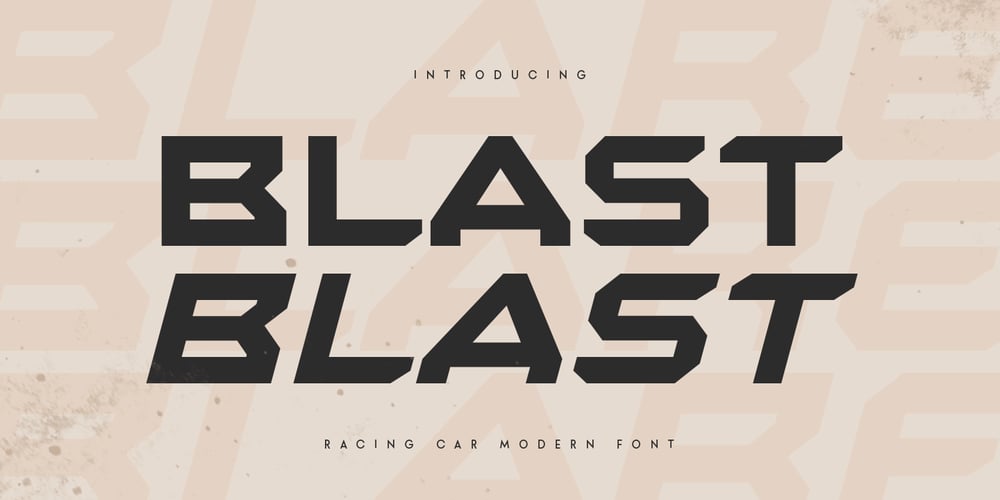
Blast Font Family was designed by Zamroni Hamzah and published by Sensatype Studio. Blast contains 2 styles and family package options. BLAST, a Racing Car Modern Font that created special for Branding, Title and more stand out typography for sport and action. It’s so perfect to add your style and headline overview for sport, technology, actions, and fighting theme. And specially for this font, we crafted for bold action style and modern feels so enjoy to create any project that will show your main idea out.BLAST Racing Car Modern Font ready with: Creative characters prepared to get best results with regular and italic version 4 files format already Preview as a inspirations that you can do with BLAST font Ready with All Uppercase characters Wish you enjoy our font. 🙂